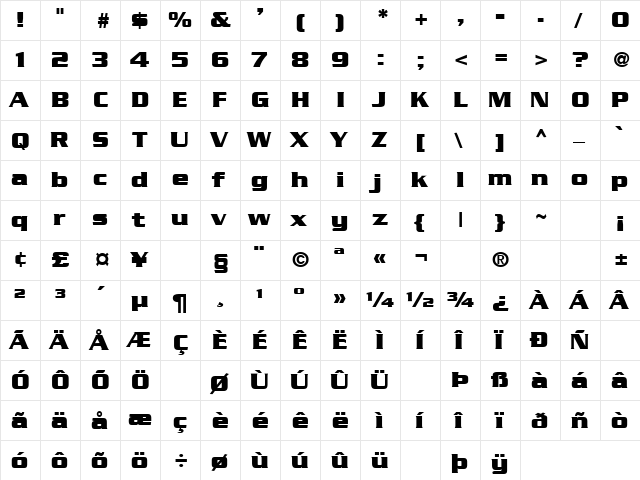
Stock Market 2 Regular
Design Context for Stock Market 2 Typeface
Stock Market 2 is a composed and adaptable typeface that performs quietly and consistently across a wide range of design contexts.